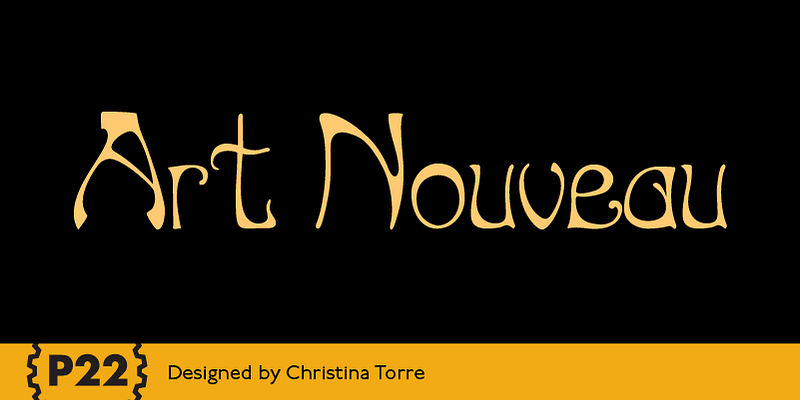
P22 Art Nouveau Font Free Download is a beautifully designed typeface that captures the elegance and flowing lines of the Art Nouveau movement. Inspired by the organic, decorative patterns of the early 20th century, this font is ideal for projects that require a sense of vintage sophistication and intricate design.
P22 Art Nouveau Font Free Download features stylized, ornamental letterforms with curvaceous strokes, making it perfect for upscale branding, invitations, posters, packaging, and editorial design that wants to evoke a sense of luxury, beauty, and artistic flair.
The font works beautifully for headlines, logos, and large text elements, bringing a unique and decorative touch to any design. It pairs well with simpler sans-serifs or more traditional serif fonts for contrast and balance.